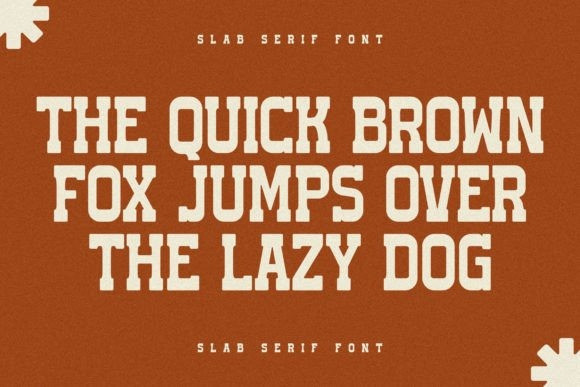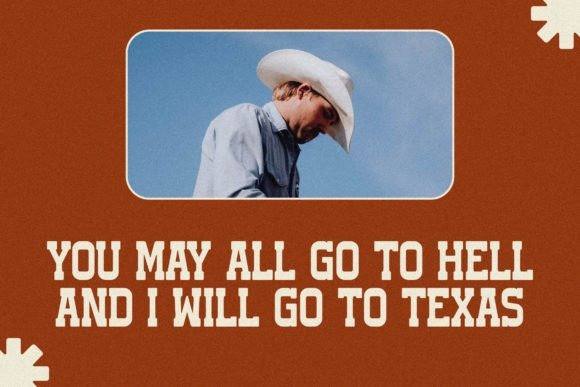
San Andreas Font
San Andreas Slab Serif  Font, created by Storytype, A serif modern and classic typeface that has own unique style & modern look. This typeface is perfect for an elegant & luxury logo, book or movie title design, fashion brand, magazine, clothes, lettering, quotes, and so much more.